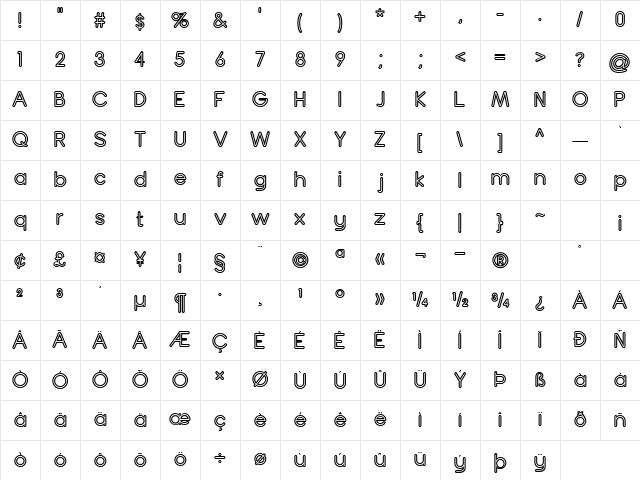
Turn Table BV Regular
Design Context for Turn Table BV
Turn Table BV is a composed and adaptable typeface that performs quietly and consistently across a wide range of design contexts.